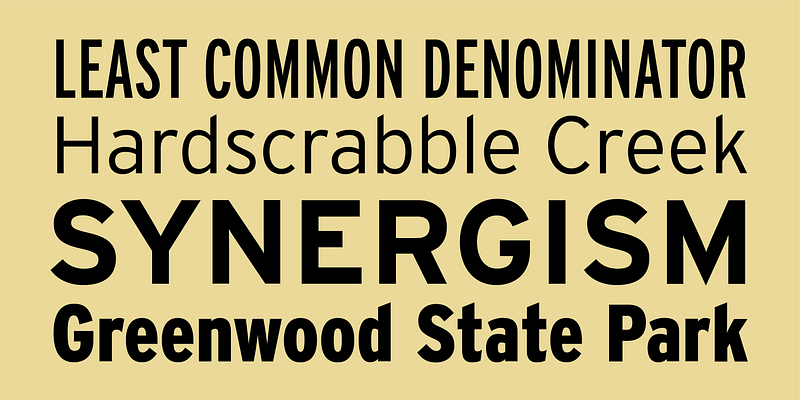
Efficient and gruff, Interstate has become a favorite for branding, packaging, publications, and more. The family is a reinterpretation of Highway Gothic, which has been the official typeface for American highway signage for decades. Its design is ultimately based on signage alphabets developed in the late 1940s by Dr. Theodore Forbes, assisted by J.E. Penton and E.E. Radek.